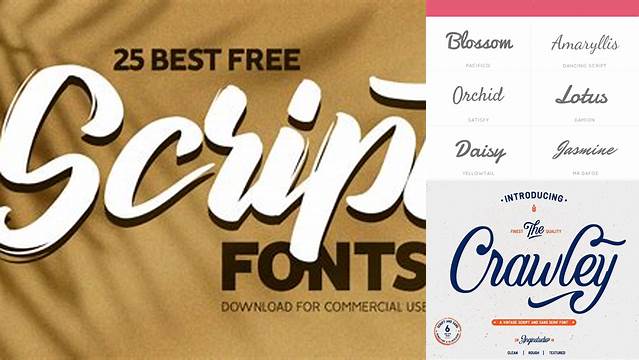
Free Script Fonts: Download Elegant Fonts For Your Designs
Are you looking to elevate your design projects with elegant and expressive typography? Do you want to add a touch of sophistication and personality to your creations? Look no further! In this comprehensive guide, we'll delve into the world of font scripts, exploring their versatility, artistic appeal, and how you can download them for free. Get ready to discover a treasure trove of beautiful typefaces that will breathe life into your designs.
What are Font Scripts?
Font scripts, also known as script fonts, are a captivating category of typefaces that mimic the flowing, handwritten strokes of calligraphy and handwriting. Unlike traditional serif or sans-serif fonts, script fonts boast a distinctive cursive style, characterized by elegant loops, swashes, and connecting strokes. This unique aesthetic lends a personal and artistic touch to designs, making them ideal for a wide range of applications.
Font scripts come in a delightful array of styles, each with its own distinct personality. From formal and refined scripts reminiscent of classic calligraphy to playful and whimsical fonts that evoke a sense of fun, there's a script font to suit every mood and project. Whether you're designing wedding invitations, logos, website headers, or social media graphics, font scripts can add a touch of charm and sophistication that sets your work apart.
When choosing a script font, it's important to consider the overall tone and message you want to convey. For formal occasions, such as weddings or corporate events, elegant and flowing scripts like calligraphy fonts or * Spencerian scripts* are excellent choices. These fonts exude sophistication and grace, adding a touch of timeless beauty to your designs. On the other hand, for more casual or creative projects, you might opt for playful or whimsical scripts that capture a sense of fun and informality. These fonts often feature unique letterforms and decorative elements, making them perfect for projects that require a touch of personality.
Why Use Font Scripts?
Font scripts are more than just pretty letters; they are powerful tools that can transform your designs and captivate your audience. Here are some compelling reasons to incorporate script fonts into your creative arsenal:
- Add a Personal Touch: Script fonts evoke the human hand, lending a personal and intimate feel to your designs. They create a sense of authenticity and connection, making your message more relatable and memorable.
- Enhance Visual Appeal: The flowing lines and elegant curves of script fonts add a touch of visual interest and sophistication to any project. They break the monotony of traditional typography, creating a captivating and engaging aesthetic.
- Create a Sense of Elegance and Style: Script fonts exude elegance and style, making them ideal for projects that require a touch of sophistication. They are perfect for conveying a sense of luxury, refinement, and timeless beauty.
- Versatile Applications: From wedding invitations and logos to website headers and social media graphics, script fonts can be used in a wide range of design projects. Their versatility makes them an invaluable asset for any designer.
- Stand Out from the Crowd: In a world saturated with generic fonts, script fonts offer a unique and distinctive aesthetic that helps your designs stand out from the crowd. They add a touch of personality and originality, making your work more memorable and impactful.
1. Font Squirrel
Font Squirrel is a treasure trove of high-quality, free fonts, including a diverse collection of script fonts. What sets Font Squirrel apart is its commitment to providing fonts that are 100% free for commercial use. This means you can confidently use these fonts in your projects without worrying about licensing restrictions.
The Font Squirrel website features a user-friendly interface that allows you to easily browse and filter fonts based on various criteria, such as style, weight, and license. You can also preview the fonts in different sizes and contexts to see how they will look in your designs. With its vast selection of free, commercially-licensed script fonts, Font Squirrel is an invaluable resource for designers of all levels.
2. Google Fonts
Google Fonts is a popular repository of open-source fonts that are free to use in both personal and commercial projects. The platform boasts an impressive collection of script fonts, ranging from elegant calligraphy styles to modern and playful designs. Google Fonts are web-friendly, meaning they are optimized for use on websites and can be easily embedded into your web projects.
The Google Fonts website offers a simple and intuitive interface for browsing and selecting fonts. You can filter fonts by category, style, and language, and preview them in different sizes and text samples. Google Fonts also provides helpful information about each font, including its designer, licensing details, and usage recommendations. With its vast selection of free, high-quality script fonts and seamless integration with web projects, Google Fonts is a go-to resource for web designers and developers.
Free Font Script Download: A World of Possibilities
Downloading free font scripts opens up a world of creative possibilities for designers. With a vast selection of script fonts available online, you can easily find the perfect typeface to elevate your projects and express your unique style. Remember to choose reputable sources, carefully review licensing agreements, and use script fonts judiciously to create stunning and impactful designs.